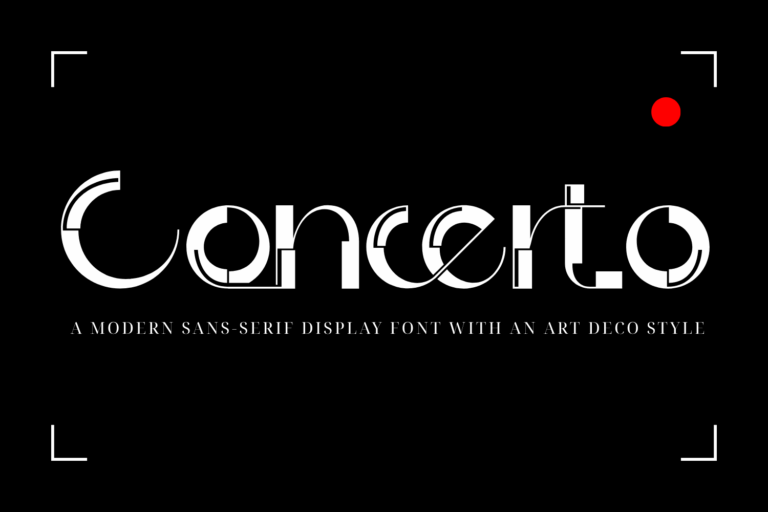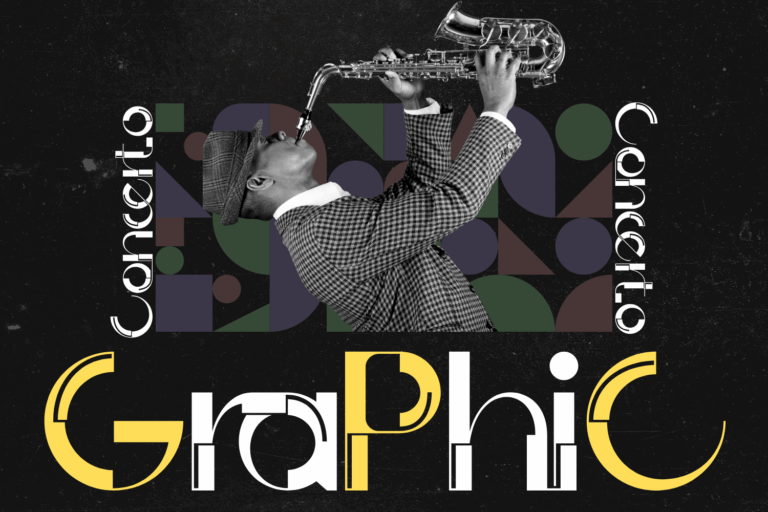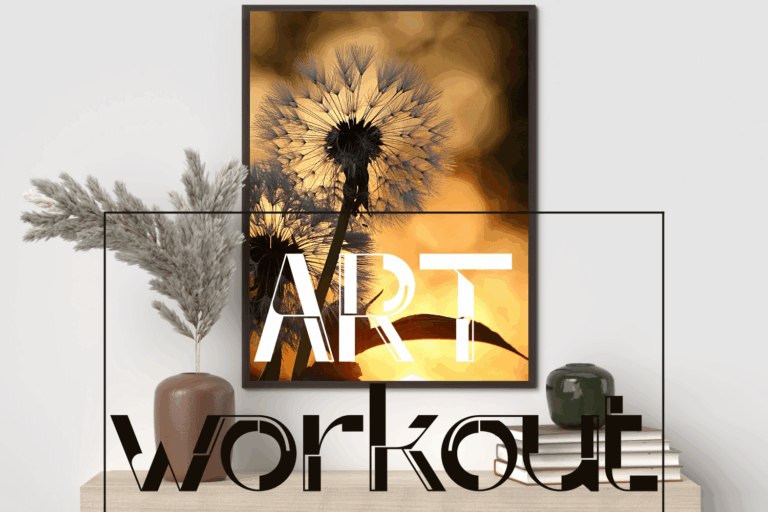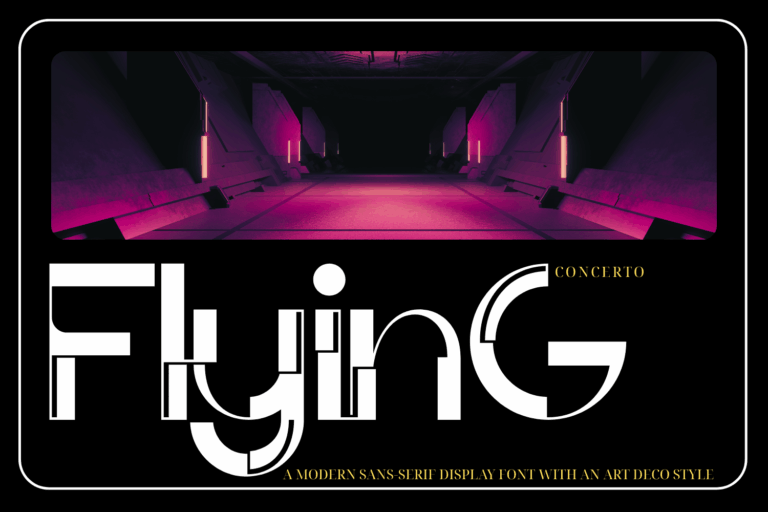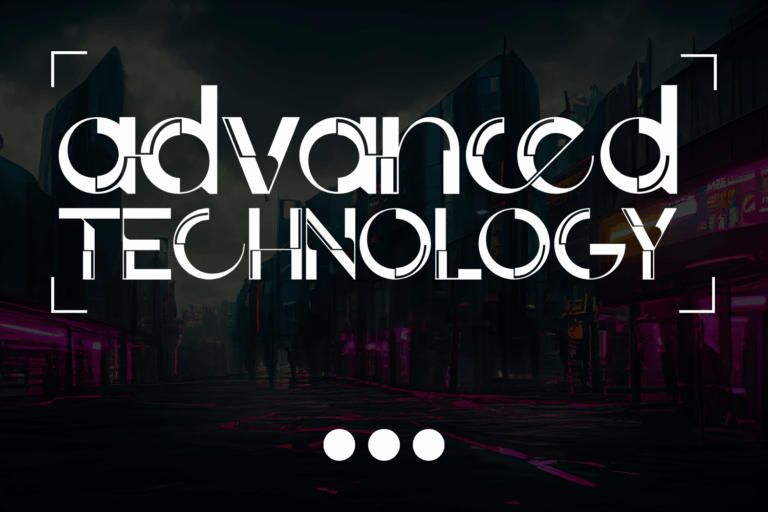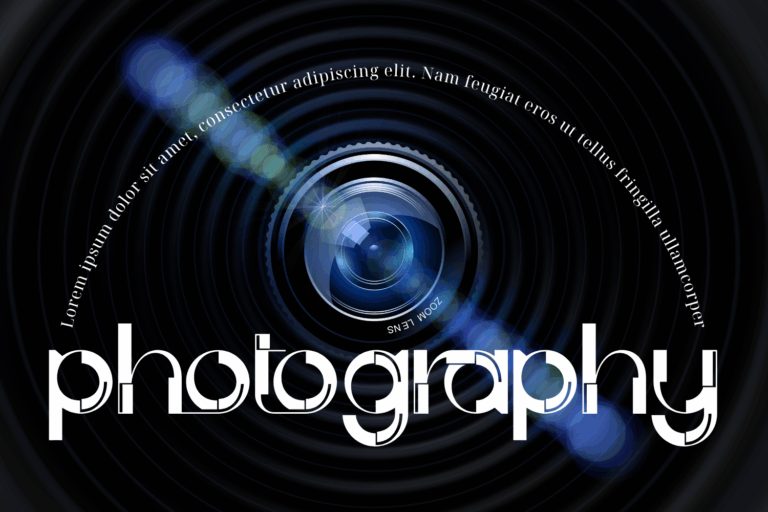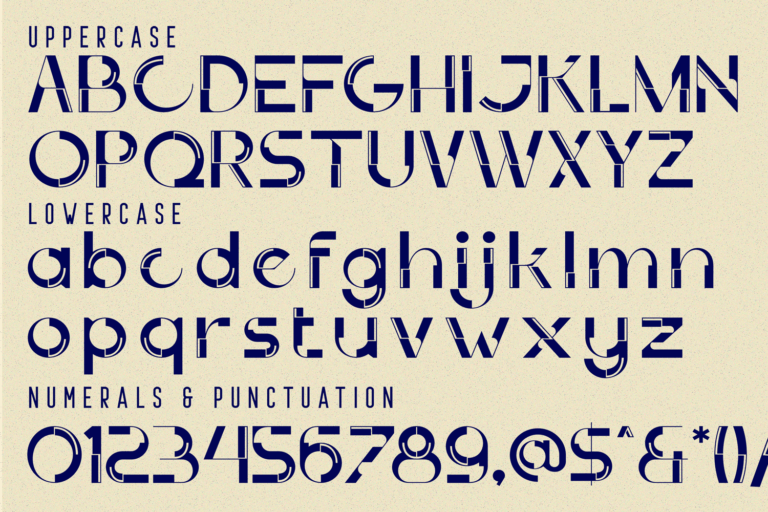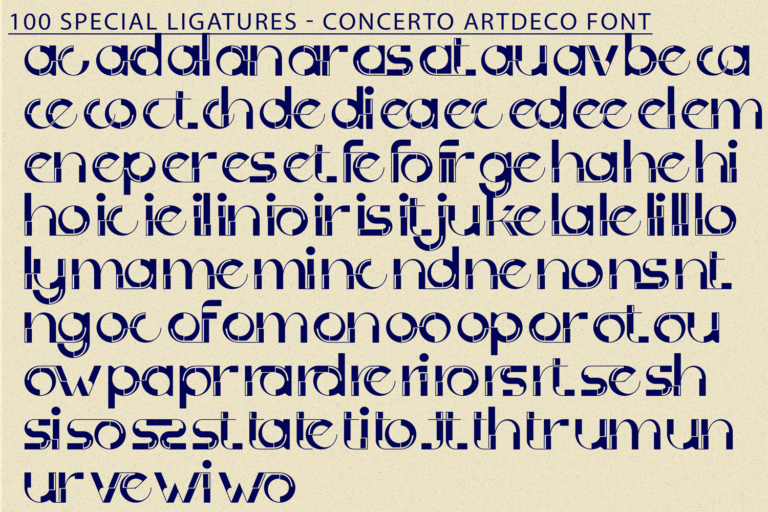
Concerto ArtDeco Font is a modern experimental typeface that bridges the worlds of typography and music. Inspired by the structure and rhythm of a concerto, each character is crafted with geometric precision, graceful arcs, and modular construction—resulting in a truly artistic display font. The design plays with negative space and abstraction, creating letters that feel simultaneously mechanical and melodic. It’s ideal for music-themed projects, digital art posters, editorial headlines, and contemporary branding that aims to be both expressive and intelligent.
• Uppercase & Lowercase Letters
• ~100 Special Ligatures for flowing rhythm
• Accented Characters for multilingual support
• Excellent for experimental design, album covers, and tech-editorial aesthetics
ac ad al an ar as at au av be ca ce ch co ct de di ea ec ed ee el em en ep er es et fe fo fr ge ha he hi ho ie ic il in io ir is it ju ke la le li ll lo ly ma me mi nc nd ne ng no nt ns oc of om on oo op or ot ou ow pa pr ra rd re ri ro rs rt se sh si so ss st ta te th ti to tr tt um un ur ve wi wo
Concerto ArtDeco Font